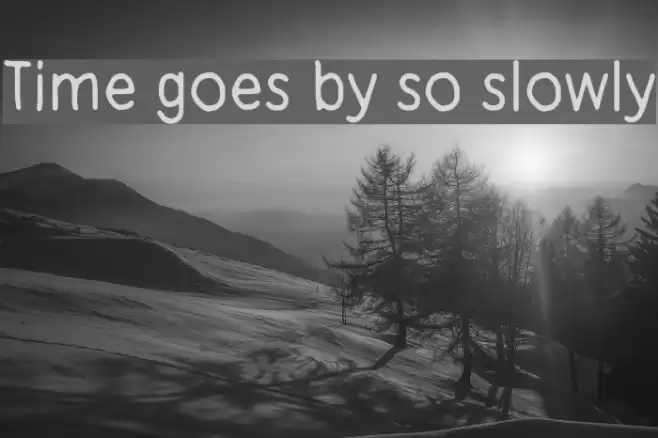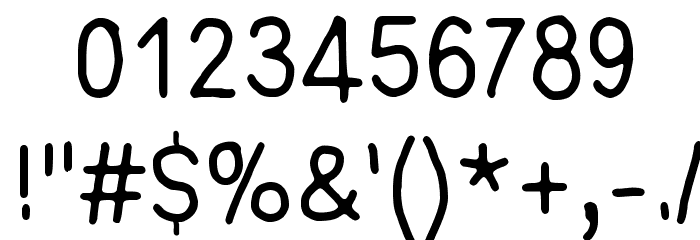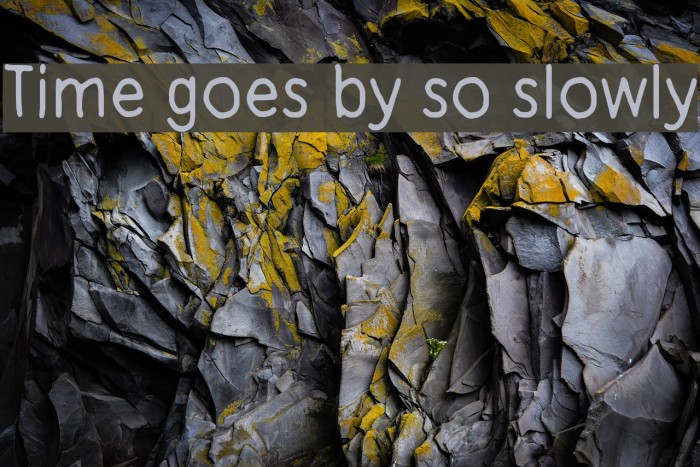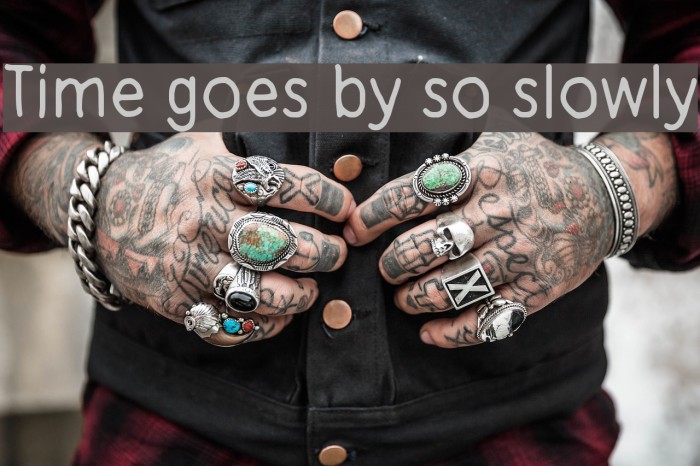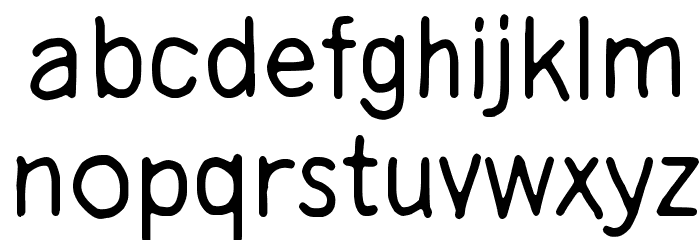
Time goes by so slowly Font
Time goes by so slowly Description
This font features a playful and casual style with rounded edges and a hand-drawn appearance. The characters are evenly spaced, providing a clean and approachable look. The uppercase and lowercase letters maintain a consistent height, contributing to a uniform and harmonious design. The numerals and special characters are crafted with the same attention to detail, ensuring readability and versatility. This font's simplicity and charm make it suitable for a variety of creative projects, from children's books to informal branding.
A playful, hand-drawn font with rounded edges and even spacing from Uncategorized fonts.
- Proposed Projects: Ideal for children's books, informal branding, greeting cards, and playful posters.
- Overall Style: Casual
- Use Case: Headlines, Logos, Informal Text